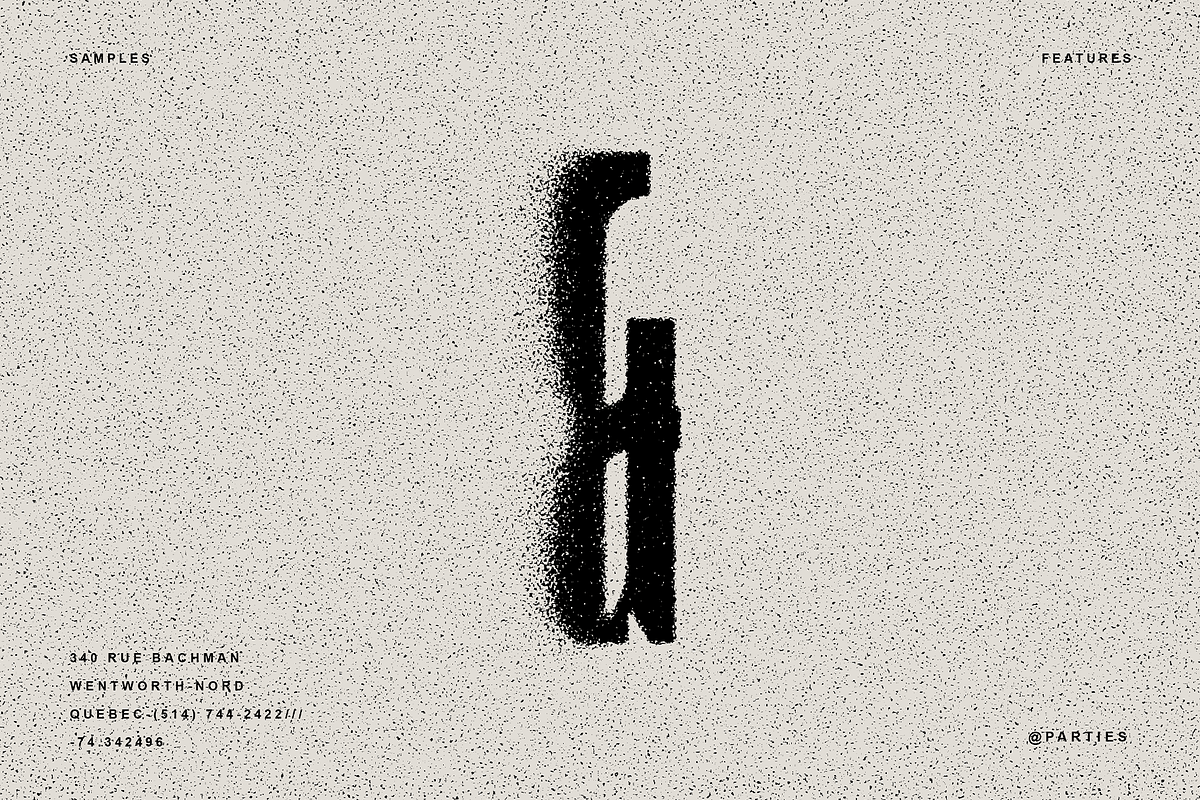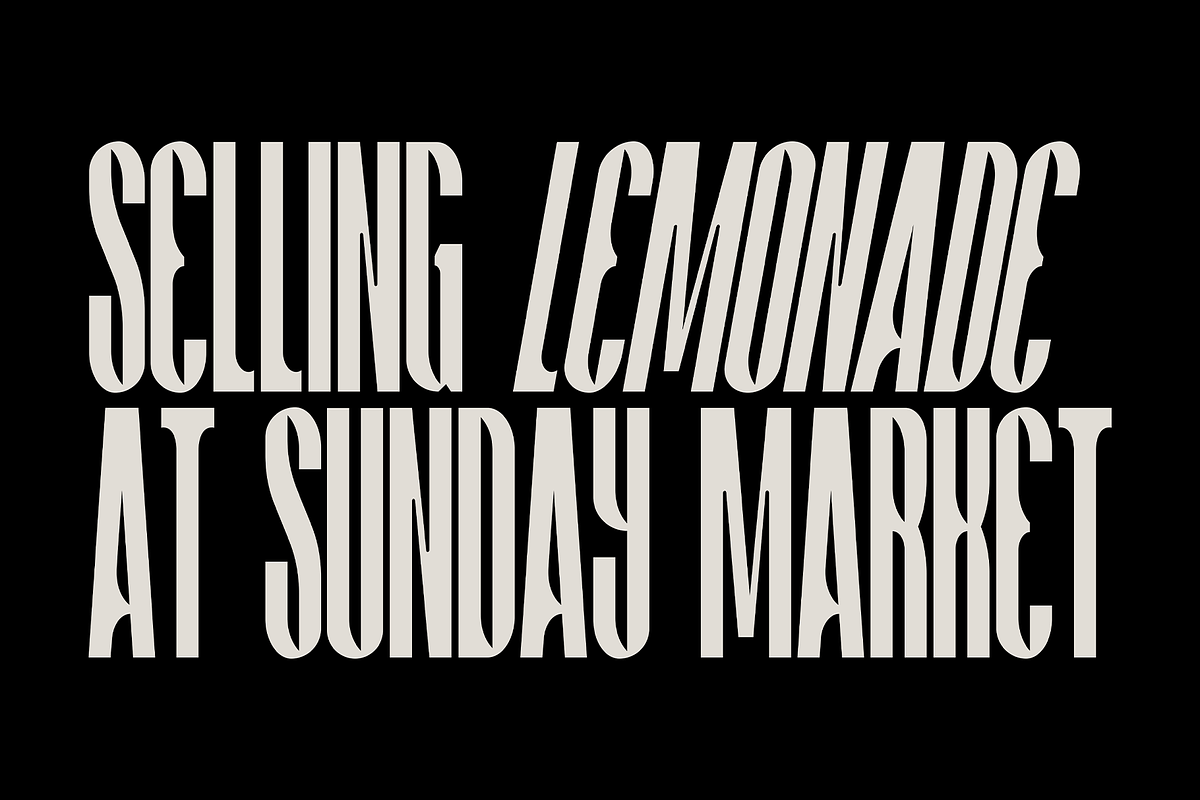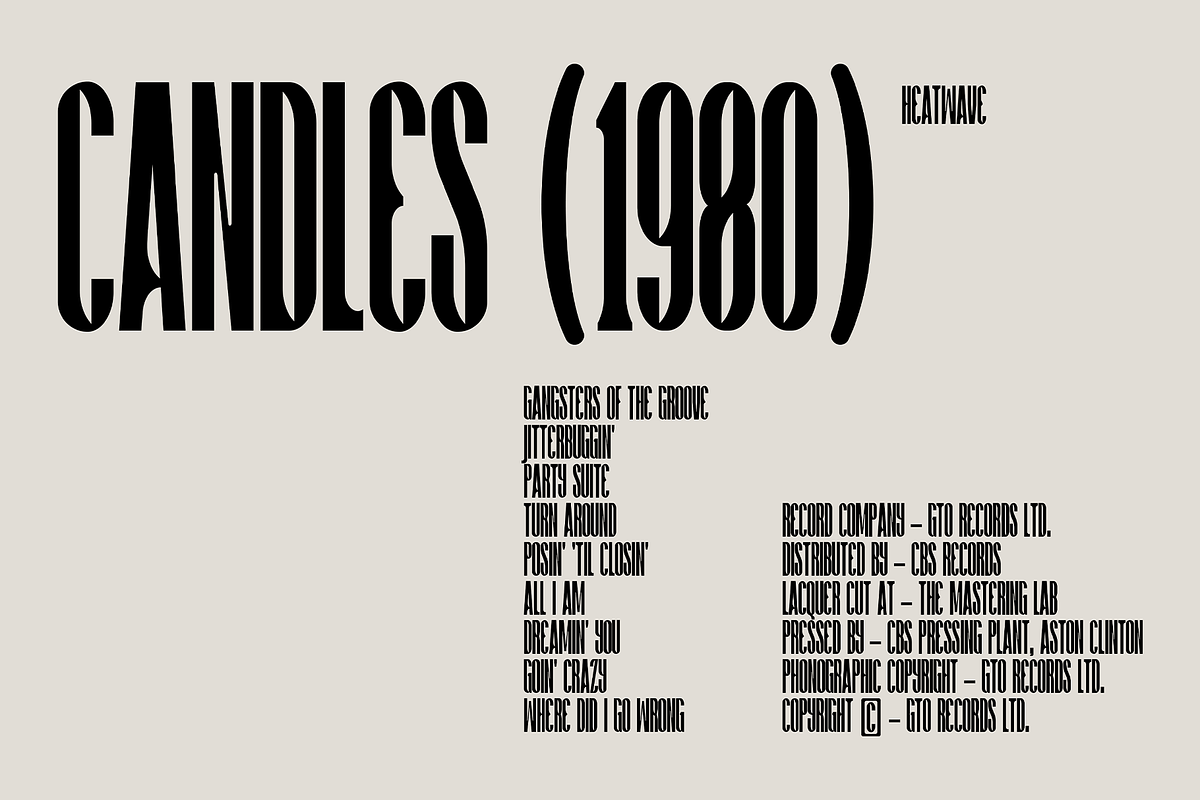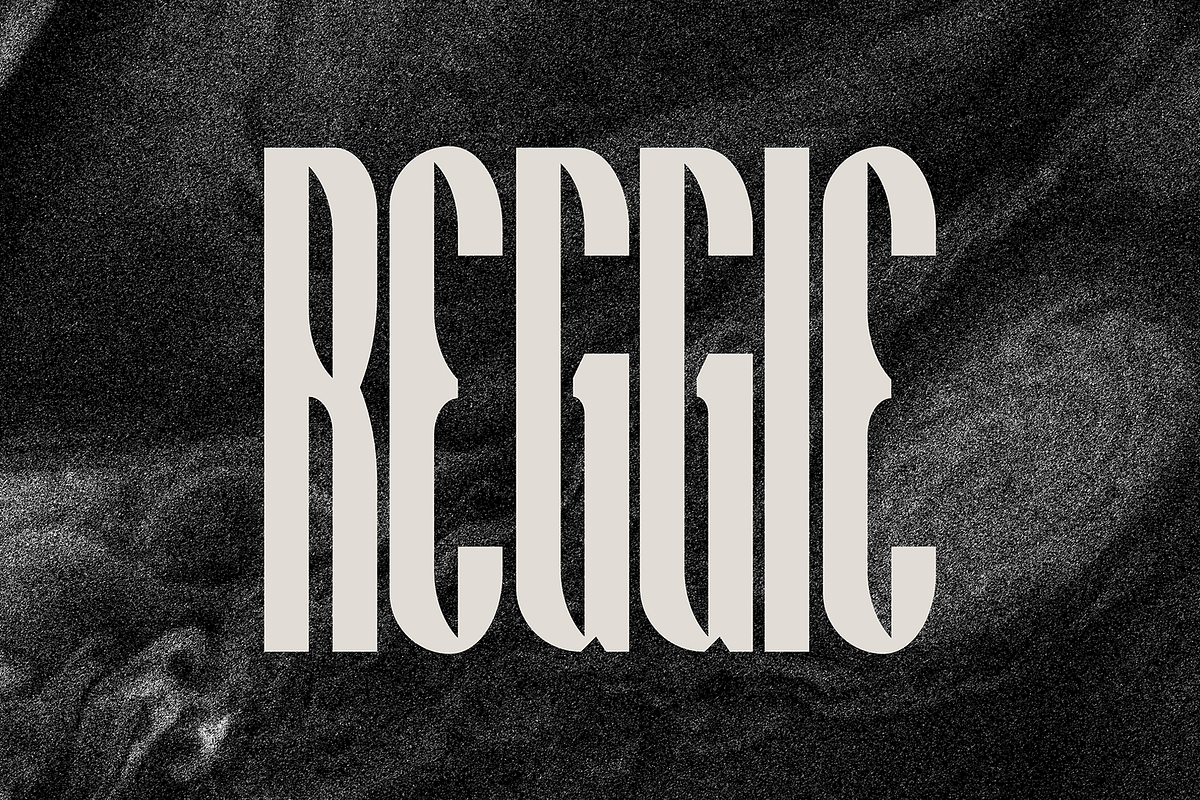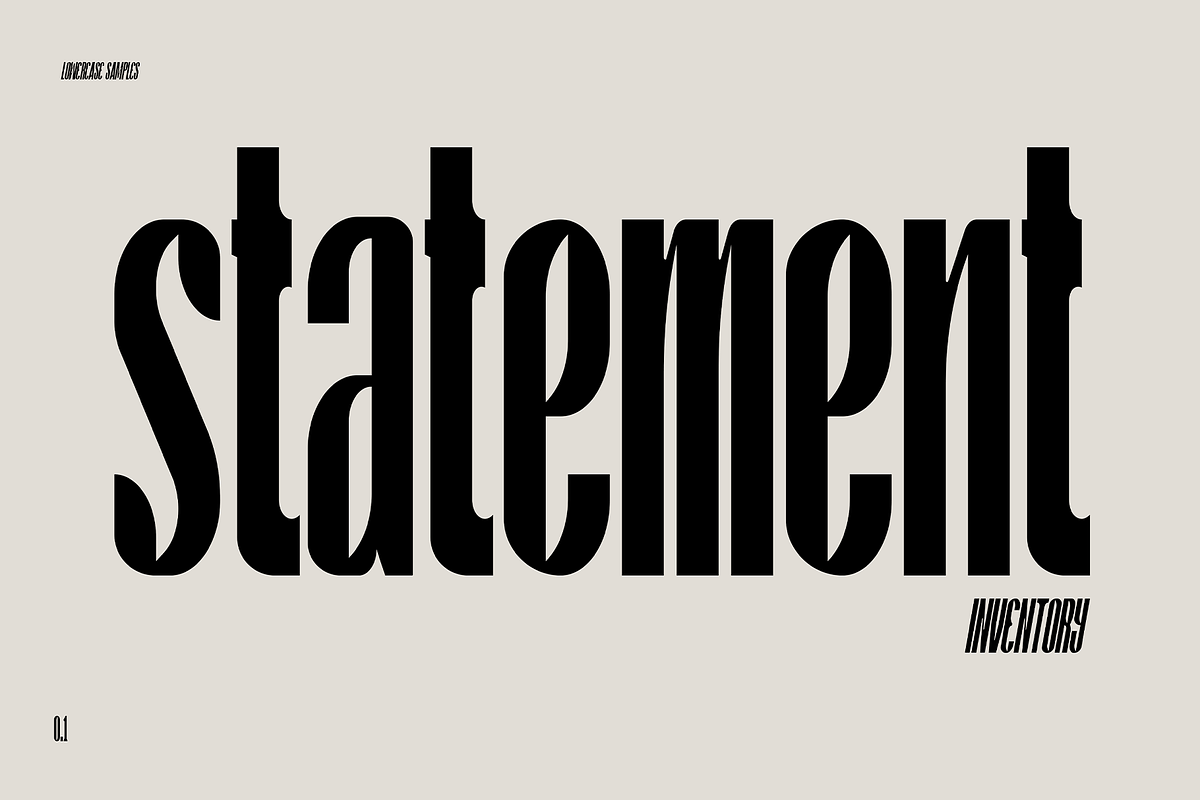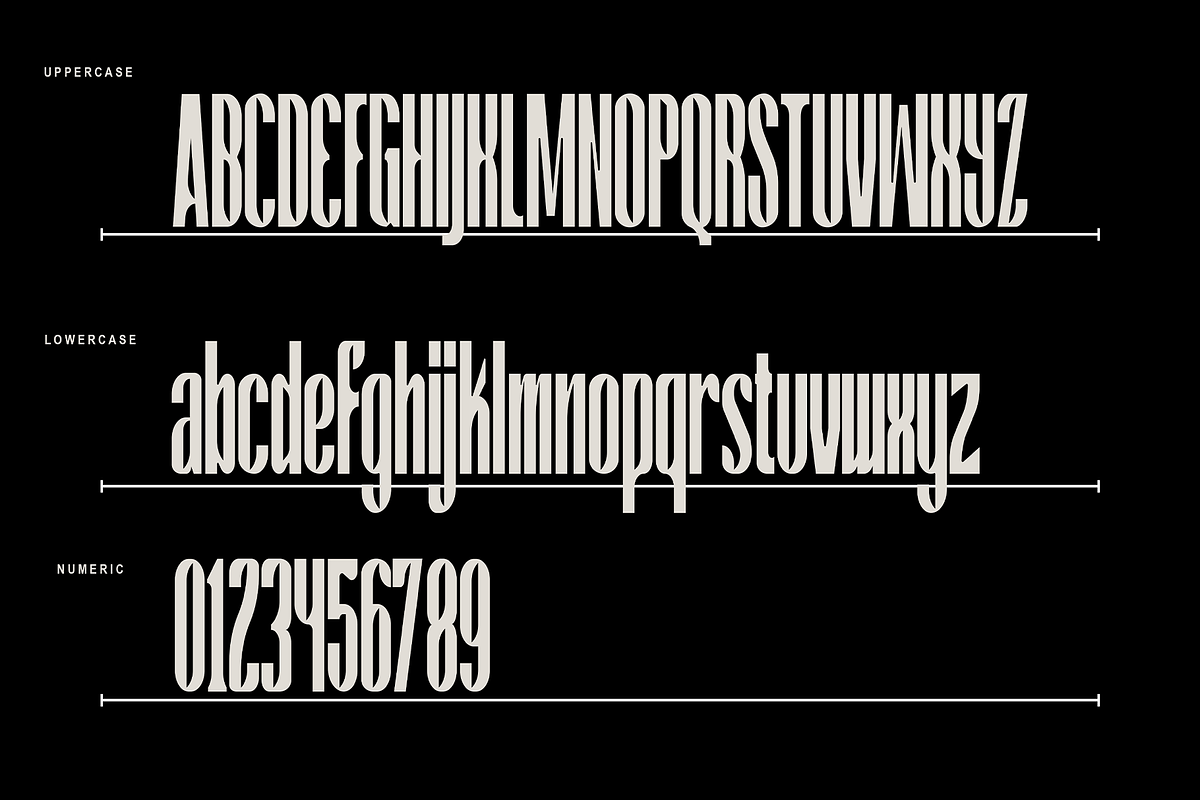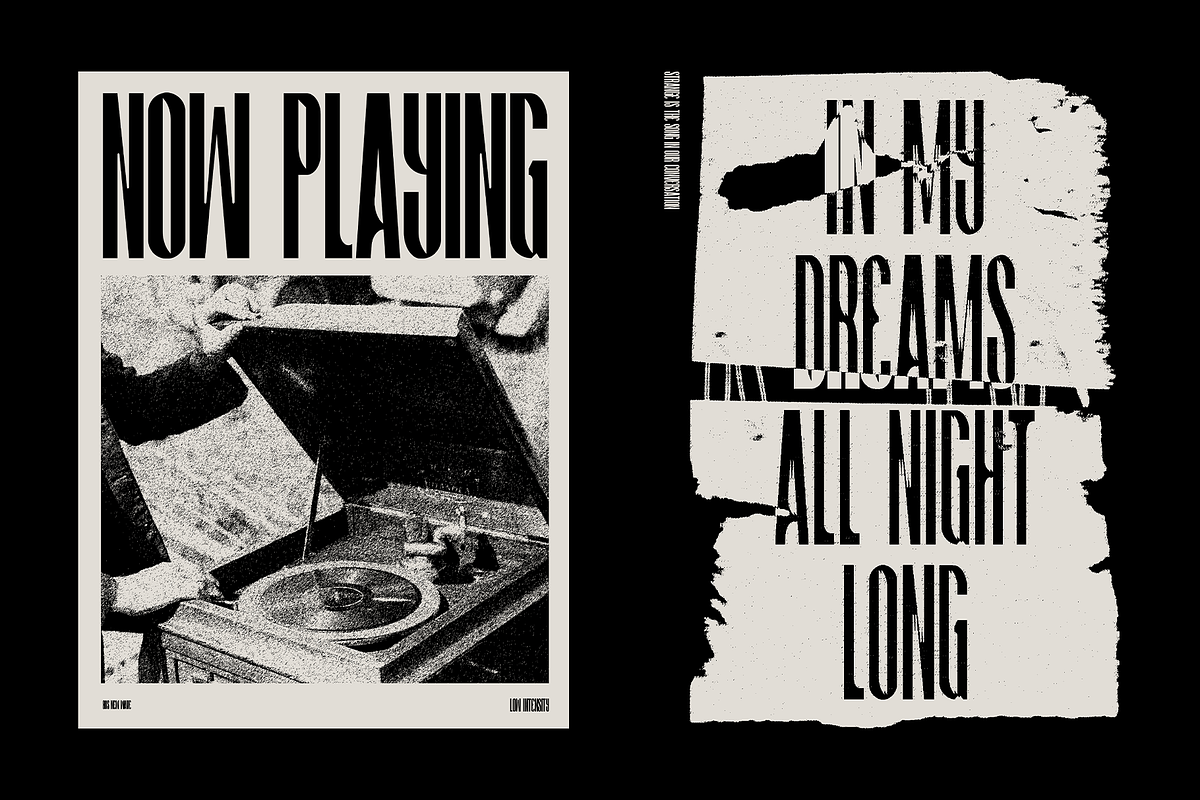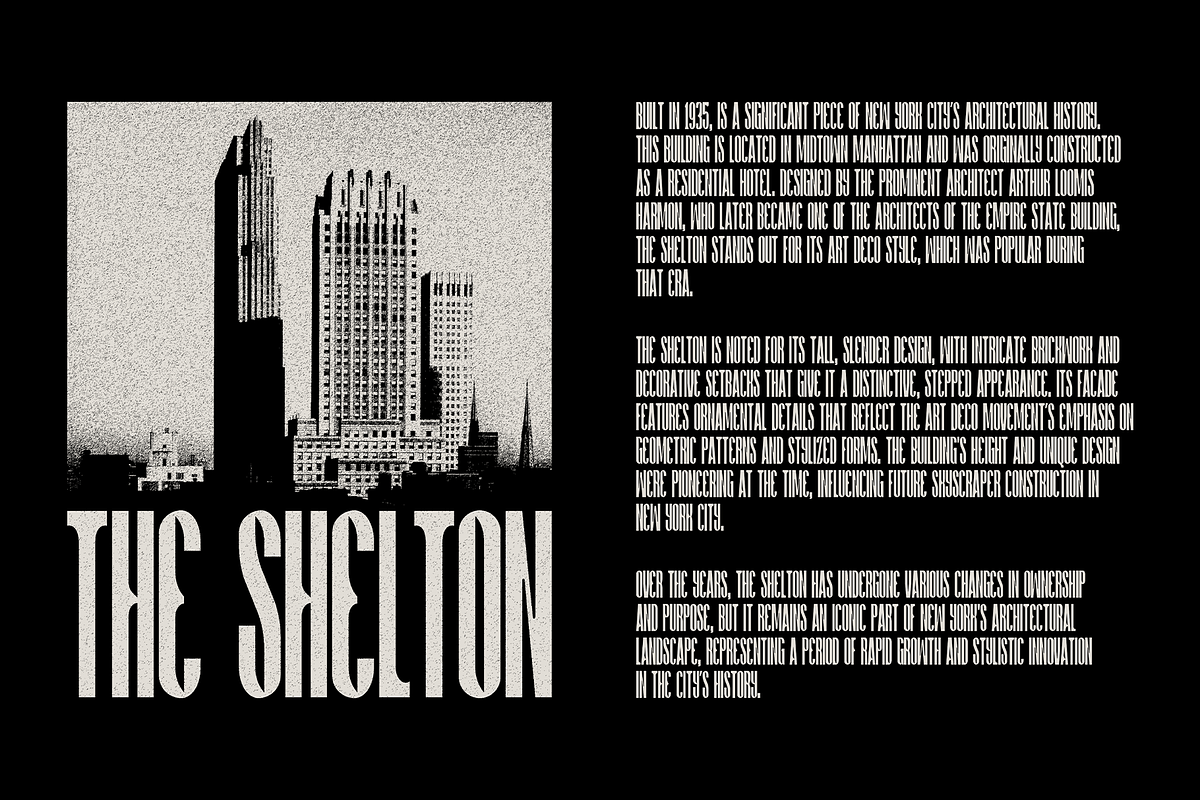
Reggie - Condensed Display Font
REGGIE comes for sleek, narrow letterforms that maximize space while maintaining readability and elegance. The letters are tightly spaced and often feature clean, straight lines with minimal ornamentation, giving the font a streamlined, contemporary look.